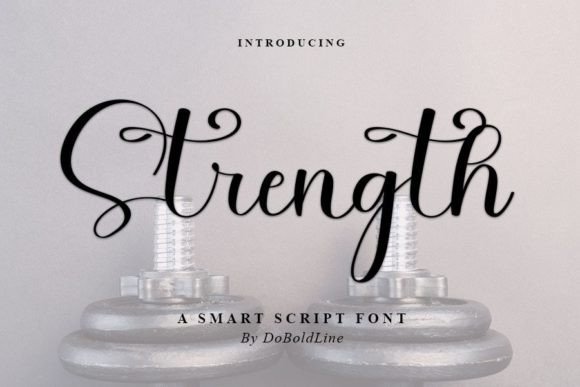
Journey into the realm of Strength Font, a captivating script font family that redefines digital aesthetics. Crafted with precision and an artistic flair by the renowned DoBold.Line, Strength Font is not just a collection of letters; it's an expression of creativity, style, and boundless possibilities.
Prepare to be mesmerized by the graceful strokes and elegant curves of Strength Font. Each character is meticulously designed to exude a sense of harmony and balance, ensuring your designs radiate sophistication and charm. Let your imagination soar as you explore the infinite applications of this versatile font.
Whether you're designing an iOS app that demands a touch of elegance, crafting social media posts that seek to captivate, or composing heartfelt letters that yearn for a personal touch, Strength Font is your perfect companion. Its innate ability to elevate any project with a timeless allure makes it an indispensable tool for designers, content creators, and visionaries alike.
Unleash the power of Strength Font and embark on a creative odyssey where your ideas take center stage. Experience the joy of crafting designs that resonate with audiences, leaving a lasting impression that's both memorable and impactful.
Don't settle for ordinary; embrace the extraordinary with Strength Font. Allow your creativity to flourish, and witness the transformation of your digital creations into captivating masterpieces.